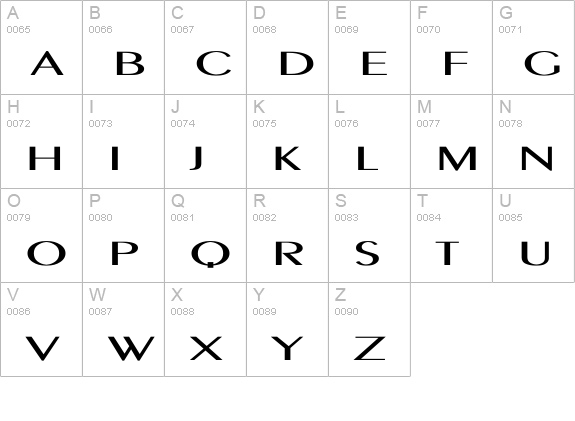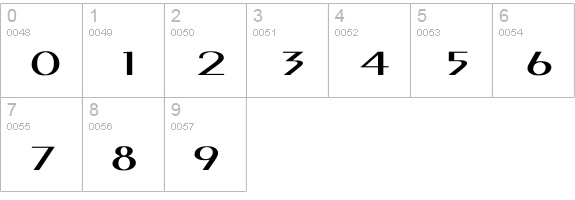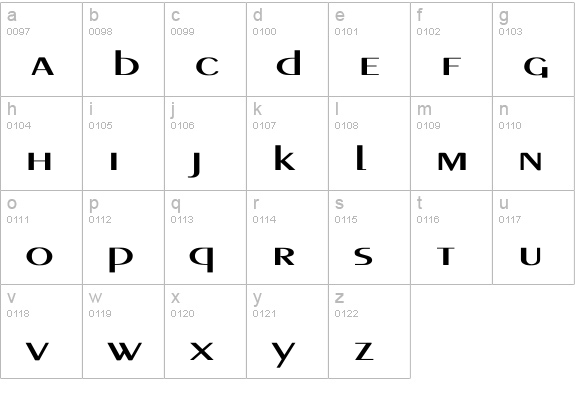
PigNoseTyp Bold Font Details
PigNoseTyp Bold is a strong, high-contrast variant in the PigNoseTyp typeface family \xE2\x80\x94 well suited to headlines, attention-grabbing titles, and strong calls-to-action.
Introducing PigNoseTyp Bold, a bold and dynamic font that is sure to make a statement. With its strong and confident letterforms, this font exudes a sense of power and presence. Whether used for headlines, logos, or any other design project, PigNoseTyp Bold demands attention and leaves a lasting impression. Featuring a unique combination of sharp angles and smooth curves, this font strikes the perfect balance between elegance and strength. Its bold weight adds a touch of boldness without compromising legibility, making it ideal for both print and digital applications. Whether used in large or small sizes, PigNoseTyp Bold ensures that your message is conveyed with clarity and impact. But what sets PigNoseTyp Bold apart is not just its striking design. It is also freely available to download at FontsMarket.com, making it accessible to designers and creatives from all walks of life. This means that you can unleash your creativity without any restrictions or limitations. Whether you're a professional designer or a hobbyist, PigNoseTyp Bold allows you to freely express your ideas and bring them to life. So why wait? Download PigNoseTyp Bold today and experience the freedom to create. With its bold and captivating presence, this font will undoubtedly elevate your designs to new heights. Let PigNoseTyp Bold be the bold and impactful statement your projects deserve.